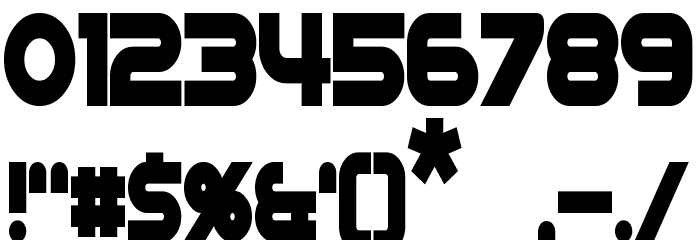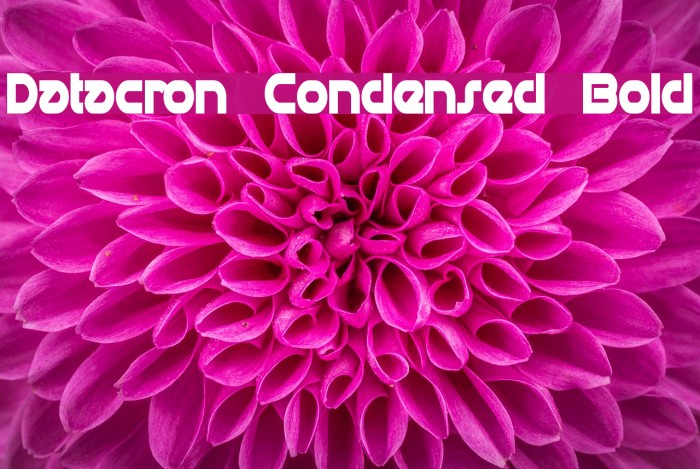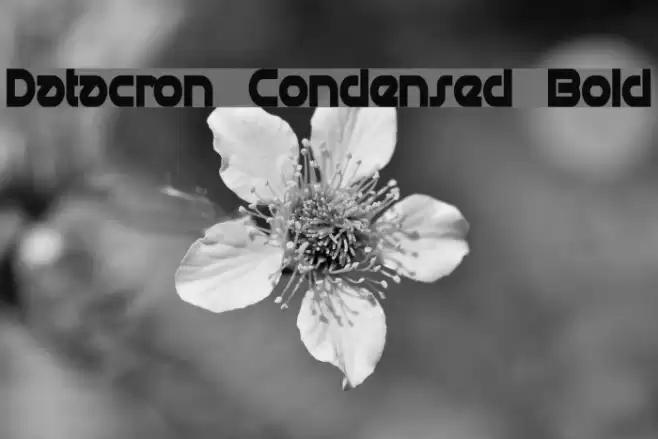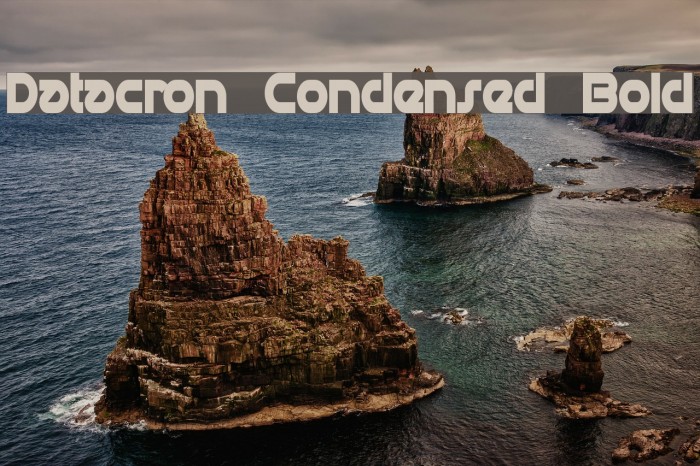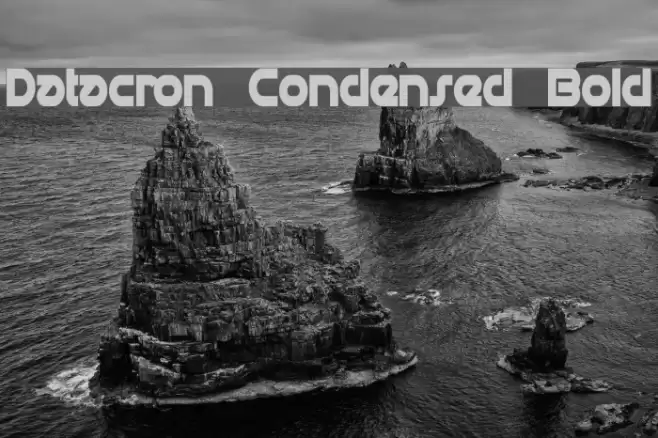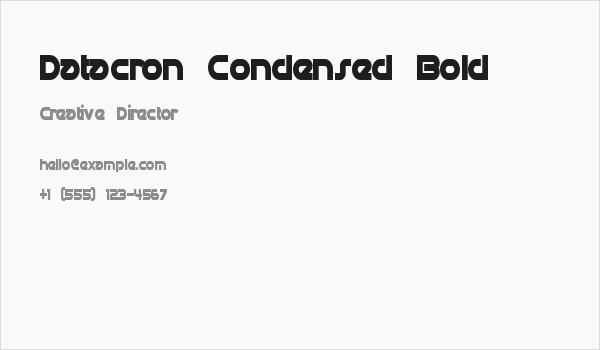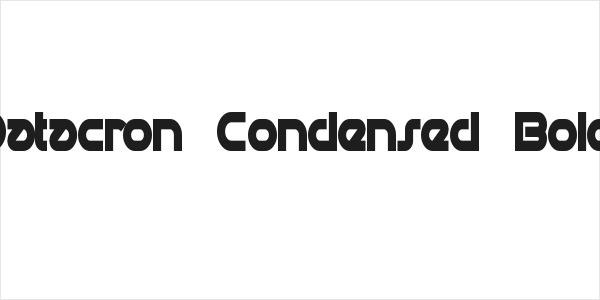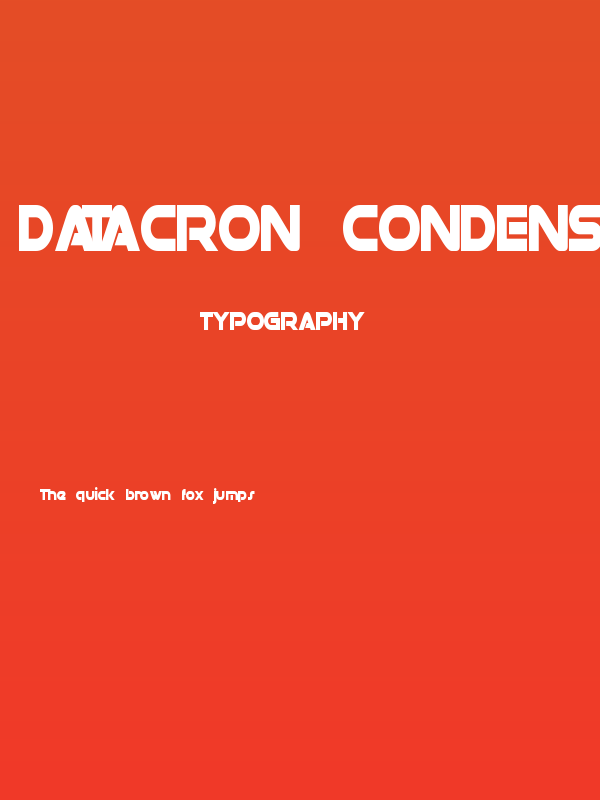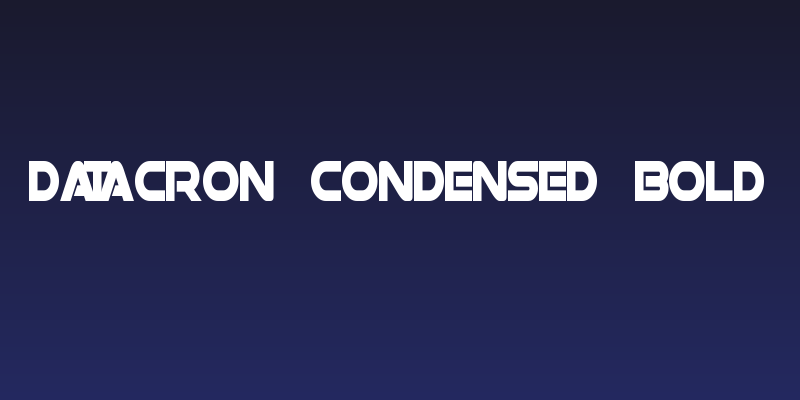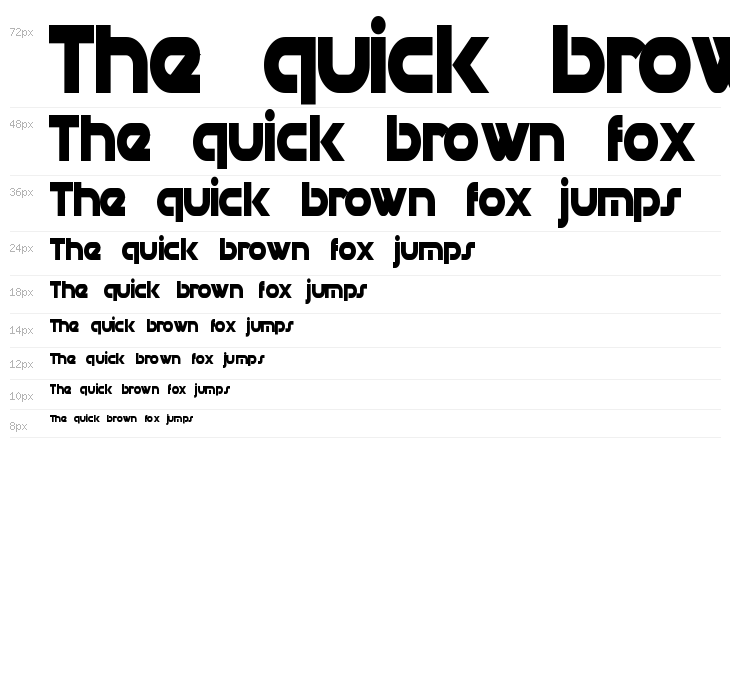
Datacron Condensed Bold Font
Datacron Condensed Bold Description
This font features a bold and condensed style with a futuristic and geometric design. The characters are constructed with thick, uniform strokes, creating a strong visual impact. The uppercase and lowercase letters maintain a consistent width, enhancing the condensed appearance. The numerals and special characters follow the same bold and structured design, ensuring uniformity across all glyphs. The font's modern aesthetic is suitable for projects that require a contemporary and assertive look. Its boldness and geometric shapes make it ideal for attention-grabbing headlines and logos.
| Proposed Projects | Ideal for technology branding, sci-fi themed designs, modern posters, and digital interfaces. |